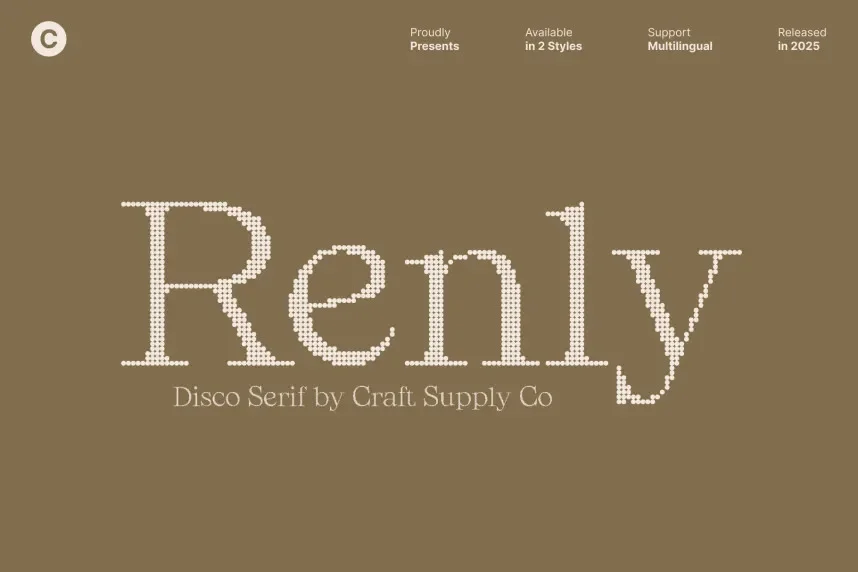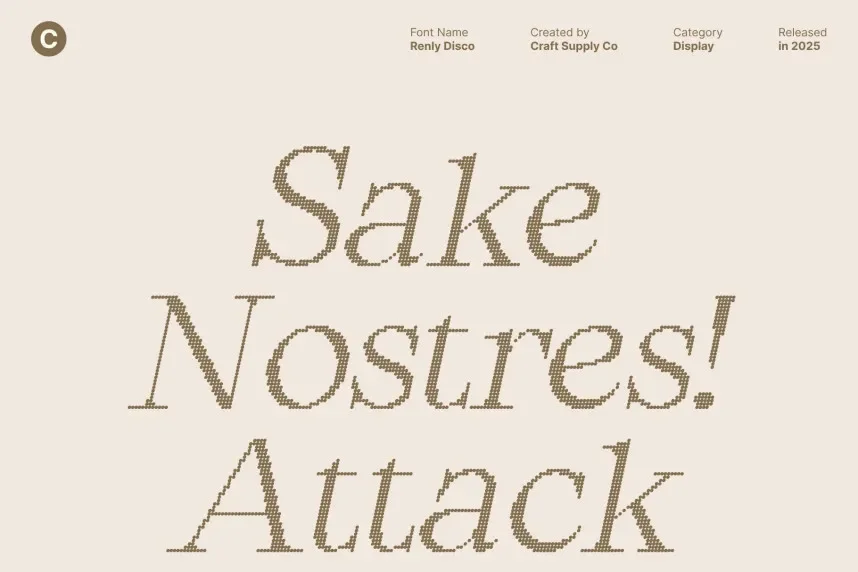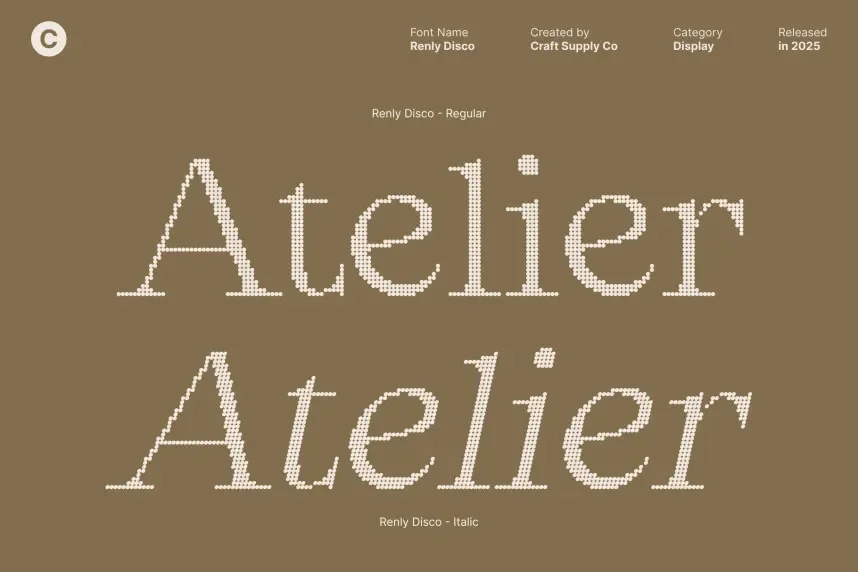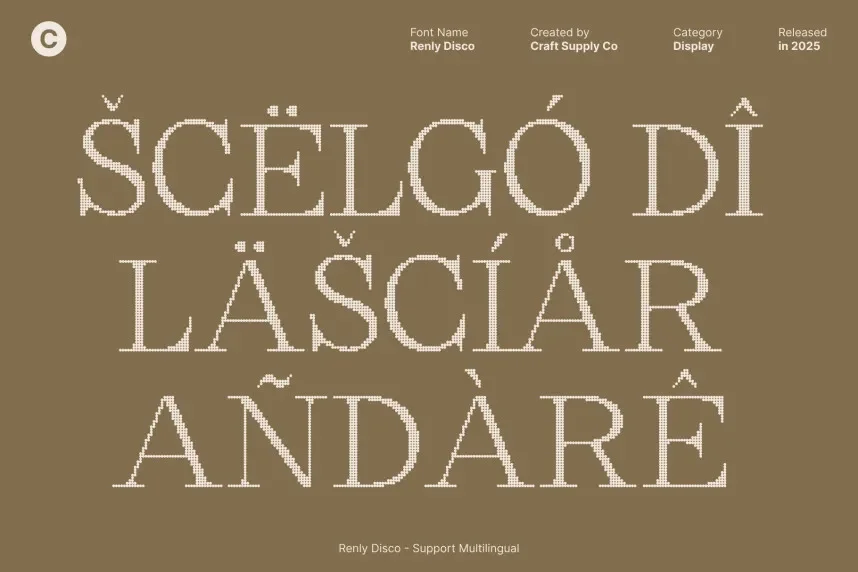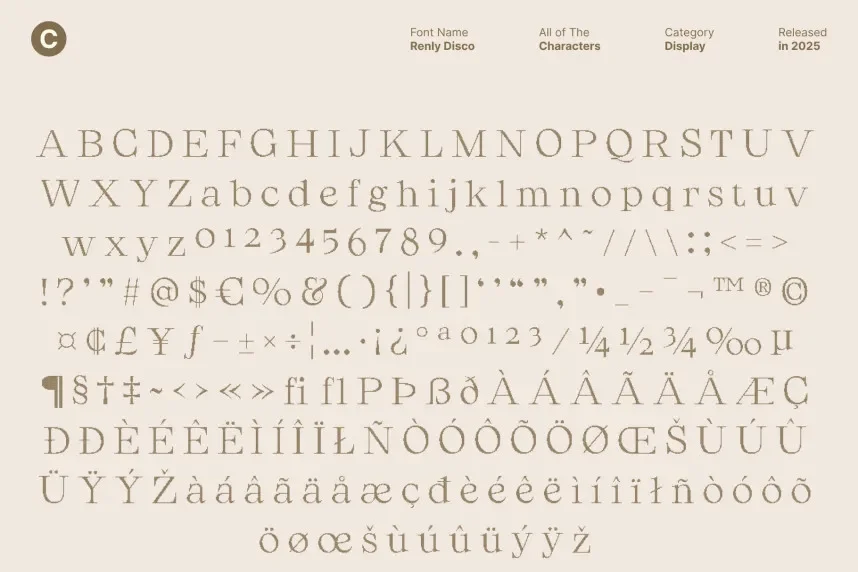
Renly Disco Font supports expressive headline design without sacrificing legibility. Decorative disco fonts often struggle with spacing and readability.
Renly Disco is a rounded display font featuring thick strokes, soft curves, and evenly spaced characters. The rounded forms help maintain readability at large sizes.